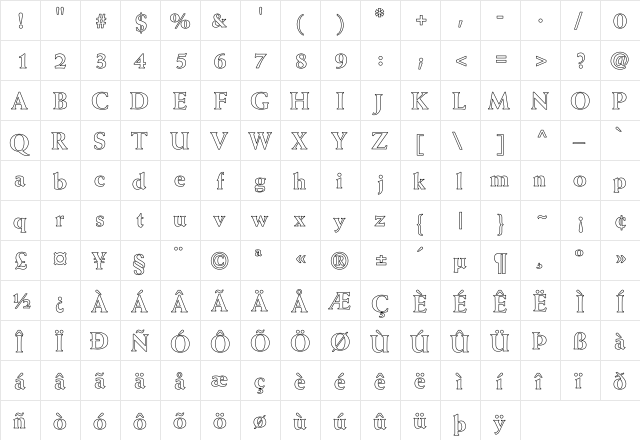
Weiss-ExtraBold Hollow Regular
Design Context for Weiss-ExtraBold Hollow Typeface
Weiss-ExtraBold Hollow takes a measured approach to typography — its balanced proportions and neutral character make it a reliable workhorse for both digital and print work. Its bold stroke weight gives it real presence on the page.